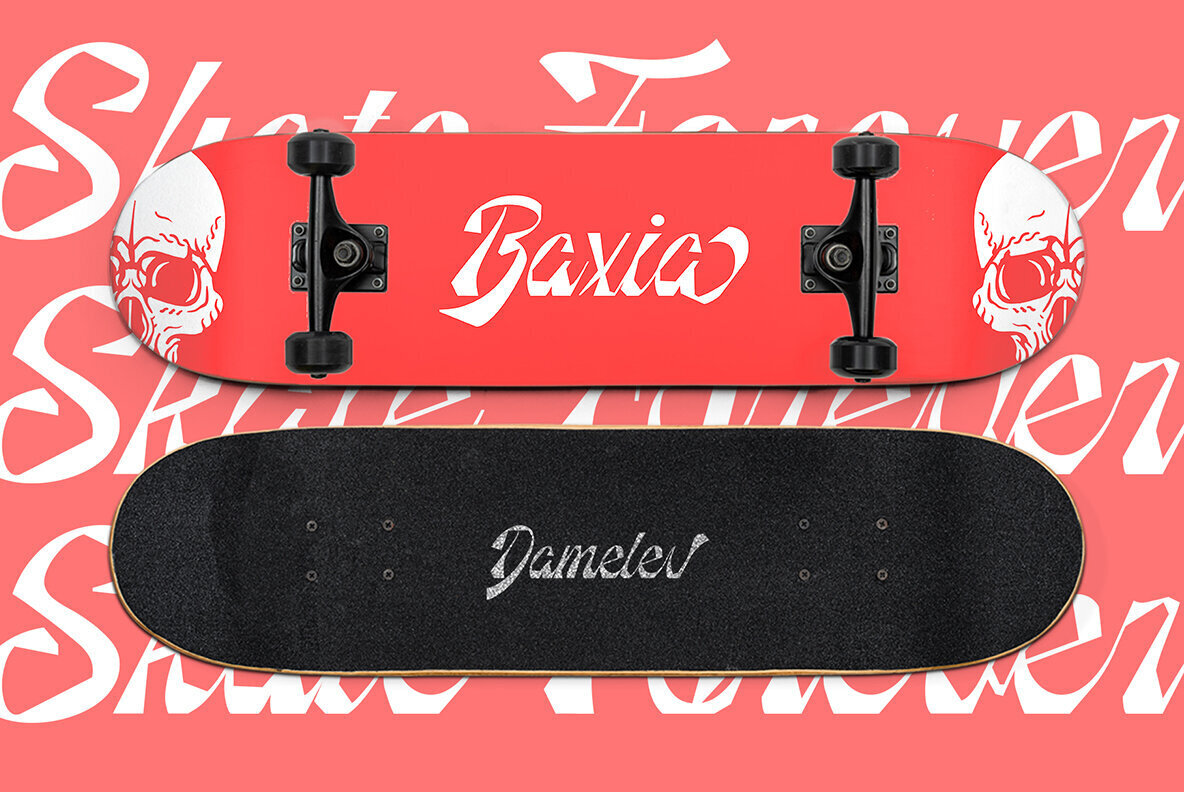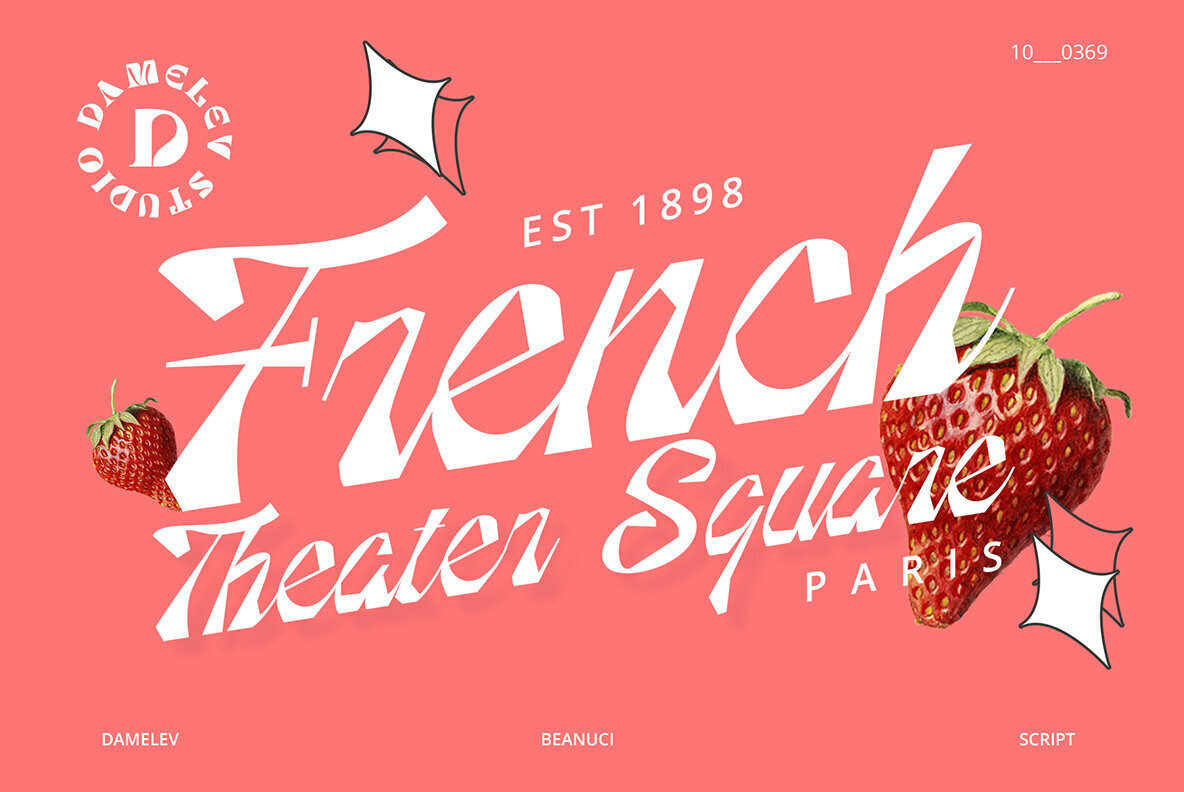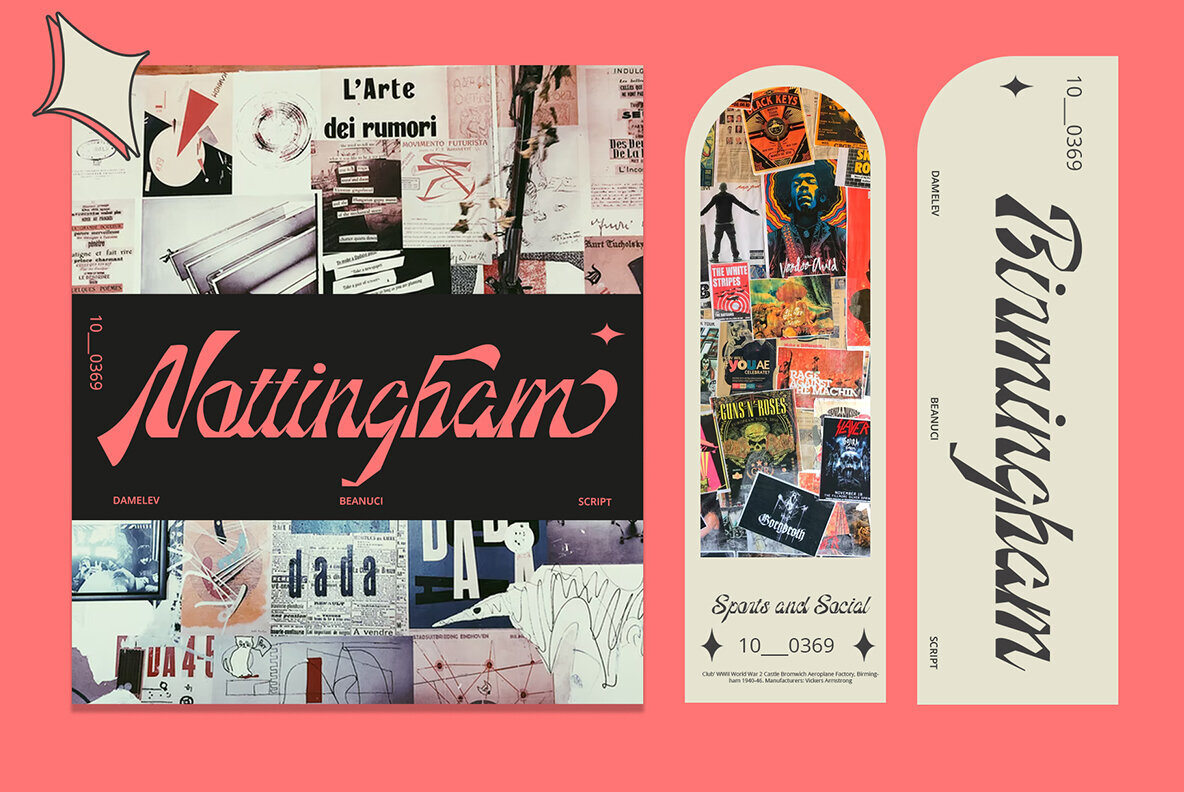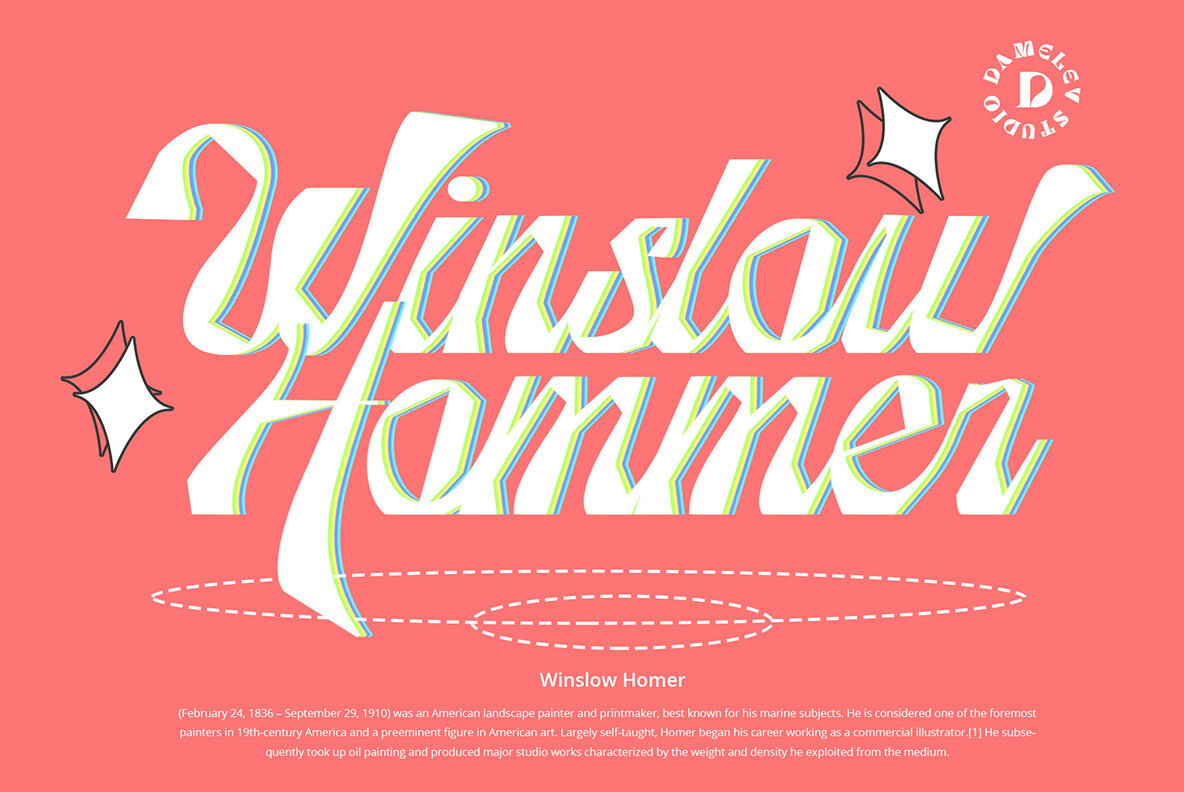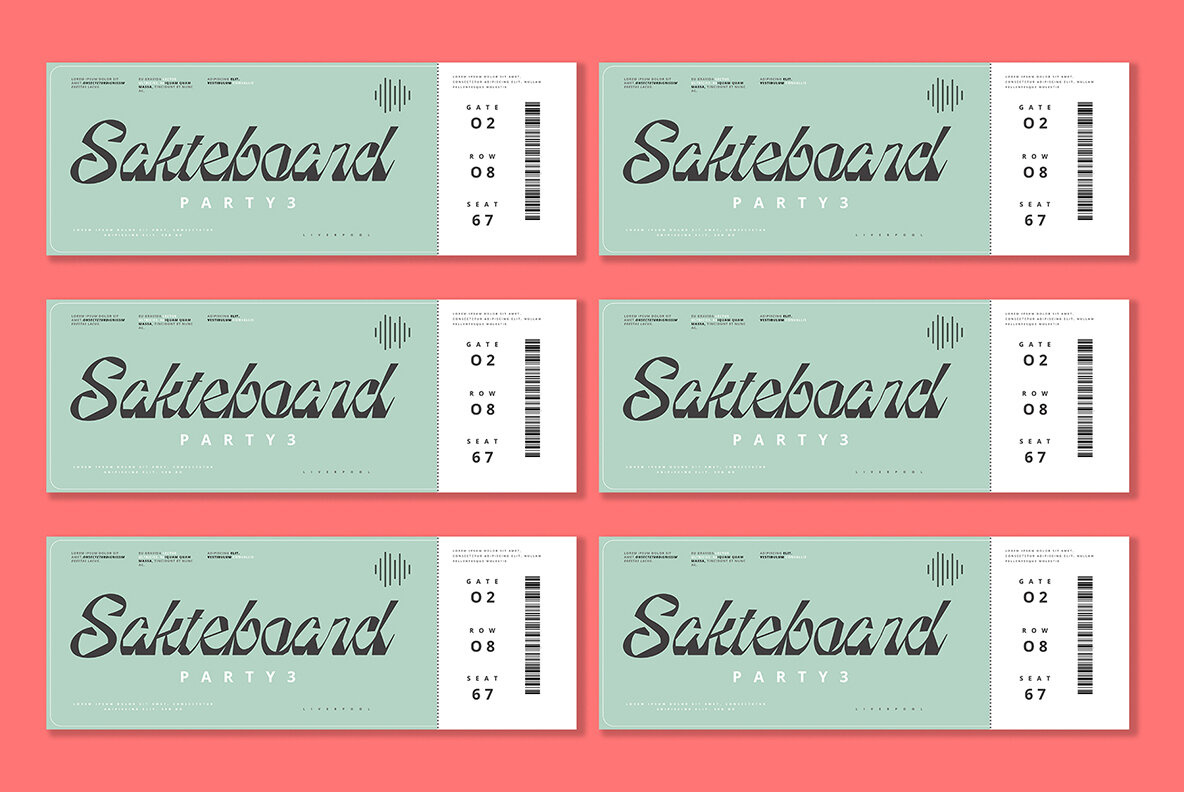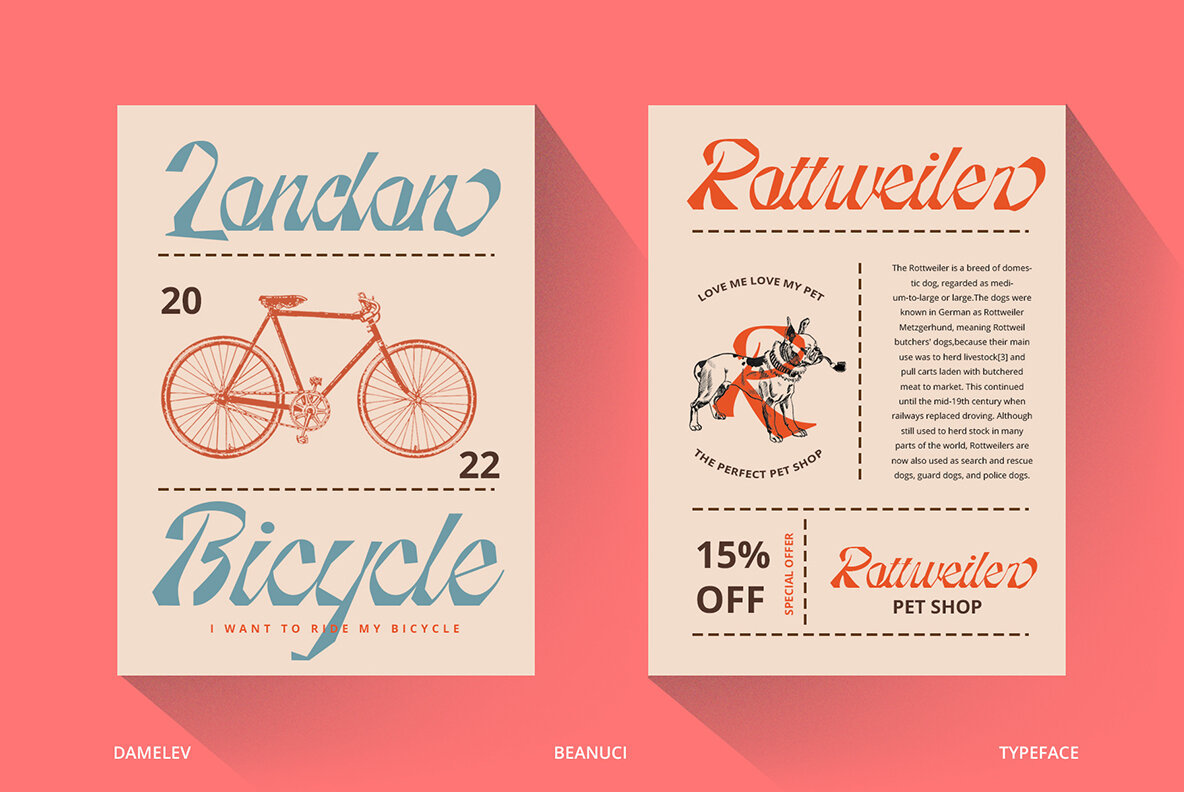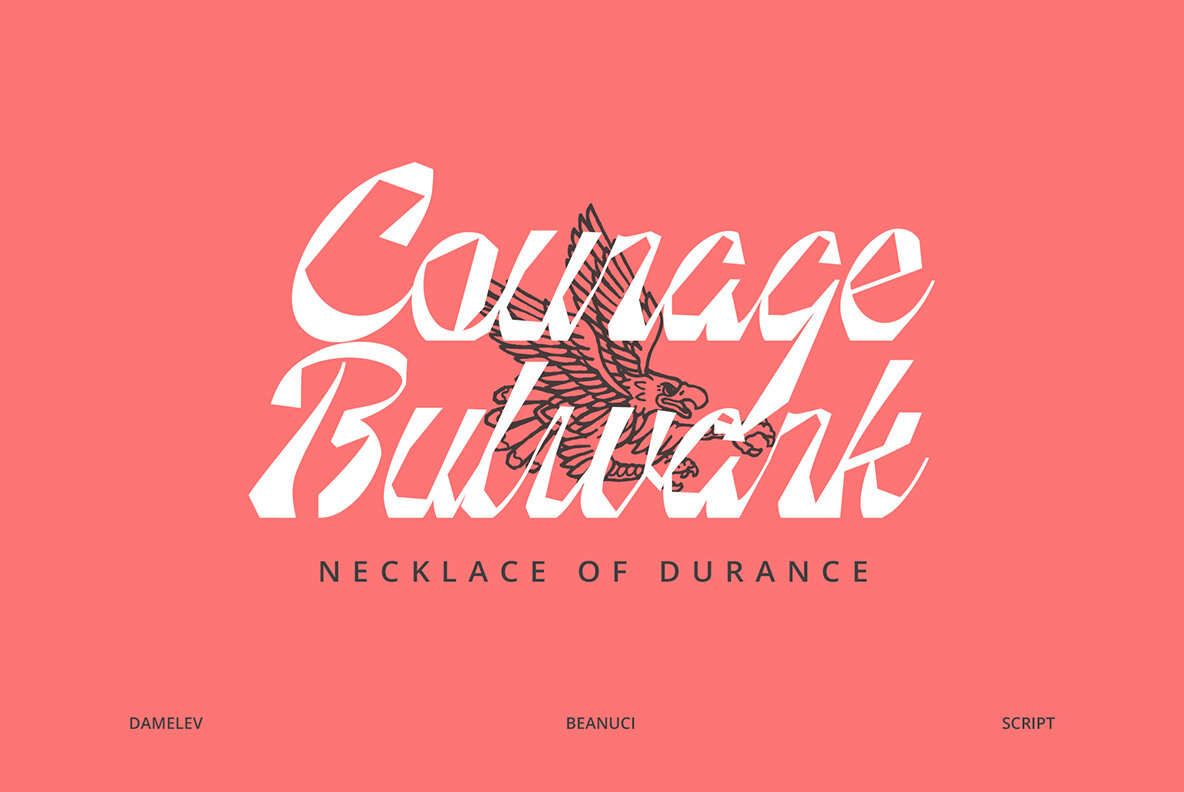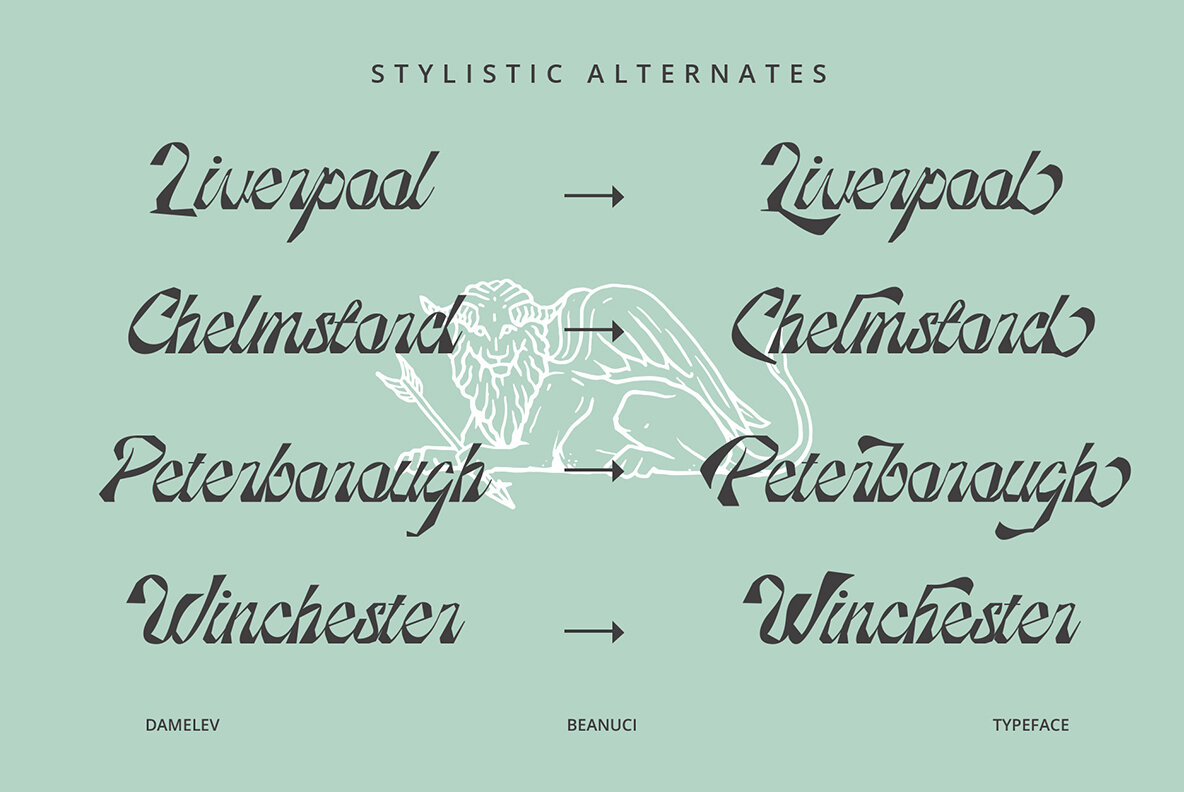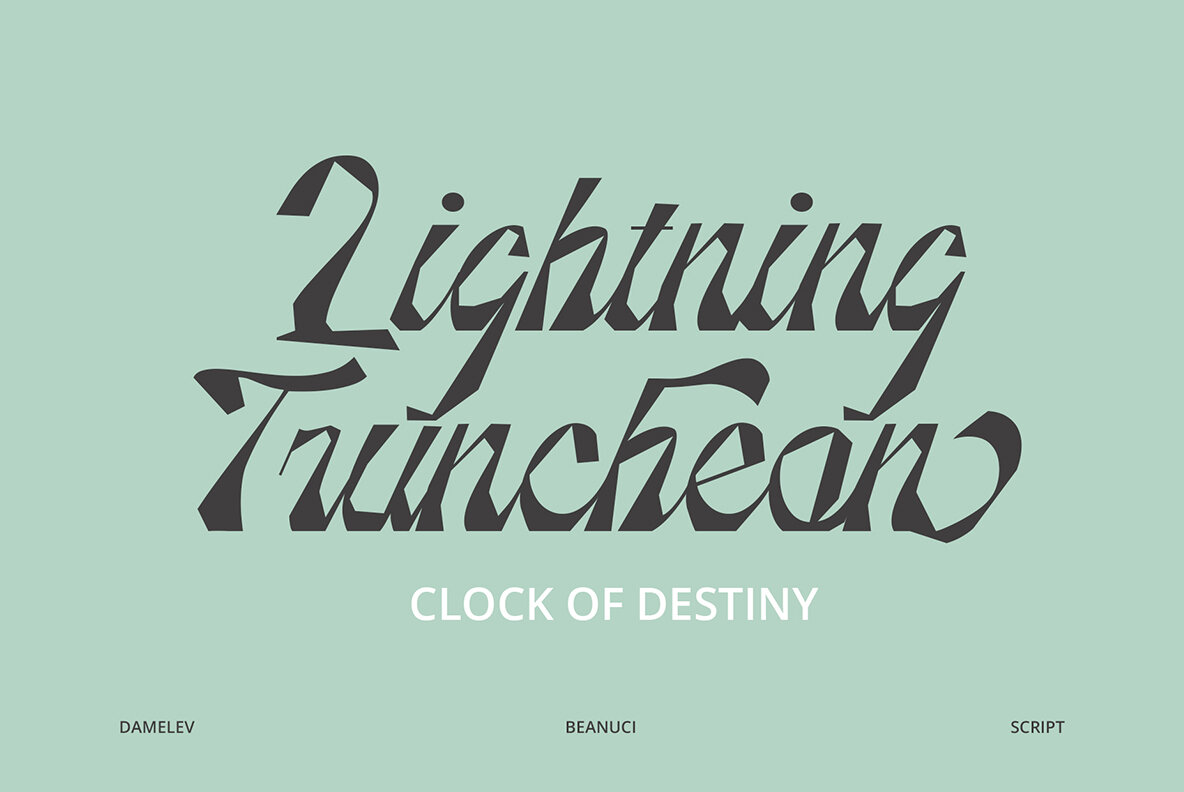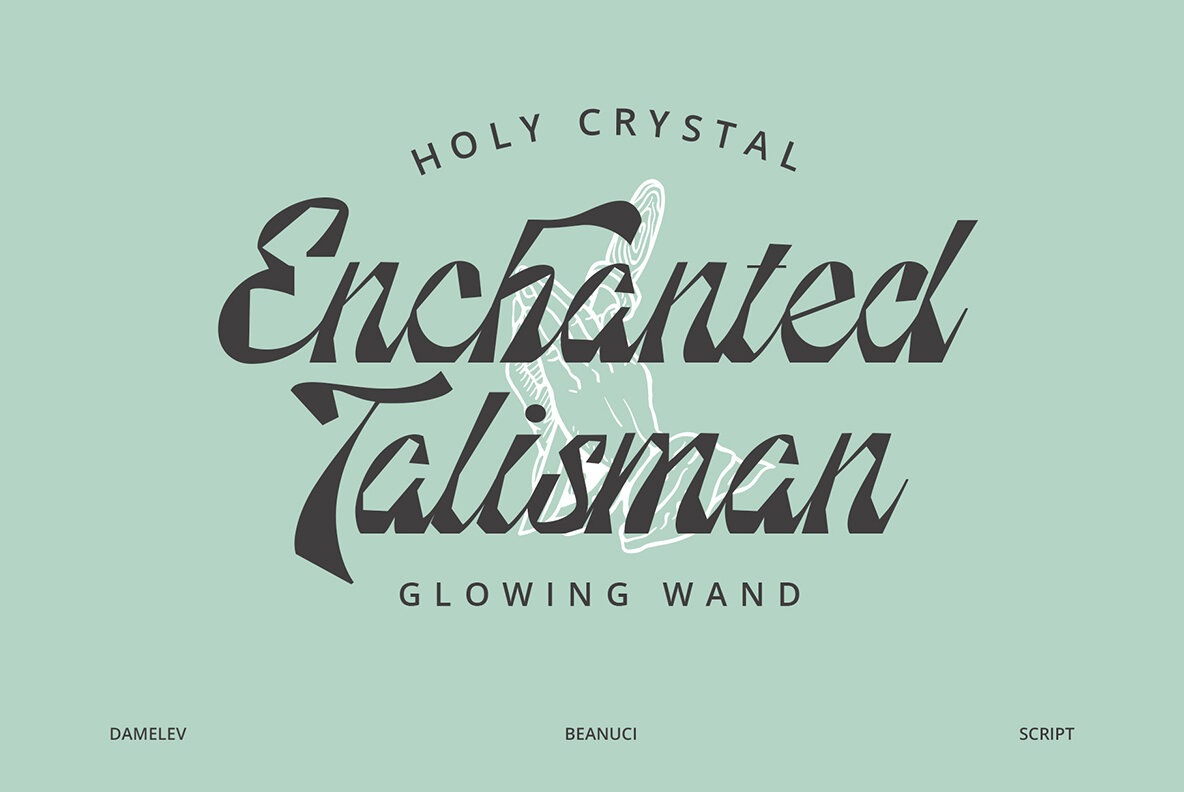
Beanuci Font
Beanuci Script Regular
Beanuci Script Is a font with a square style that has a very strong characteristic, its square shape makes this font look cool and modern. Beanuci script font a little hard to read in small sizes, but would look great at medium and large sizes. Beanuci has pretty much alternatives glyphs choice in the pack and support multilingual.